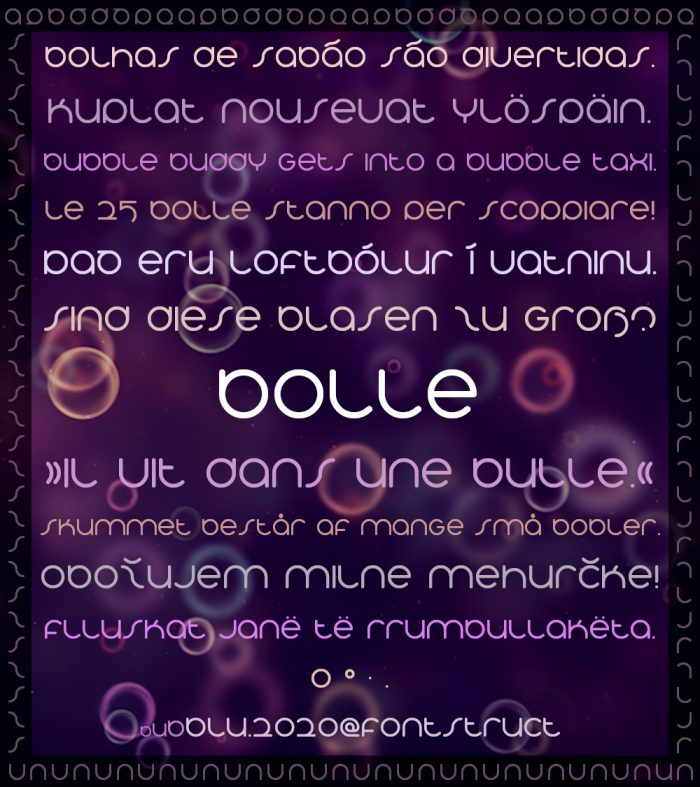
very nice design, kind of reminds me of "circles" by @time.peace
very neat i like it
Congratulations on the TP! I have missed this one. Maybe it would work better if the B & D ascenders and P & Q descenders were a bit longer, IMHO.
Sorry, B&D&P.
@elmoyenique: thank you! :) I tried to keep all the basic letters the same height, so that's why the B+D ascenders and the P descender aren't longer. but I think about your advice.
You have kept this very compact and it works really well!